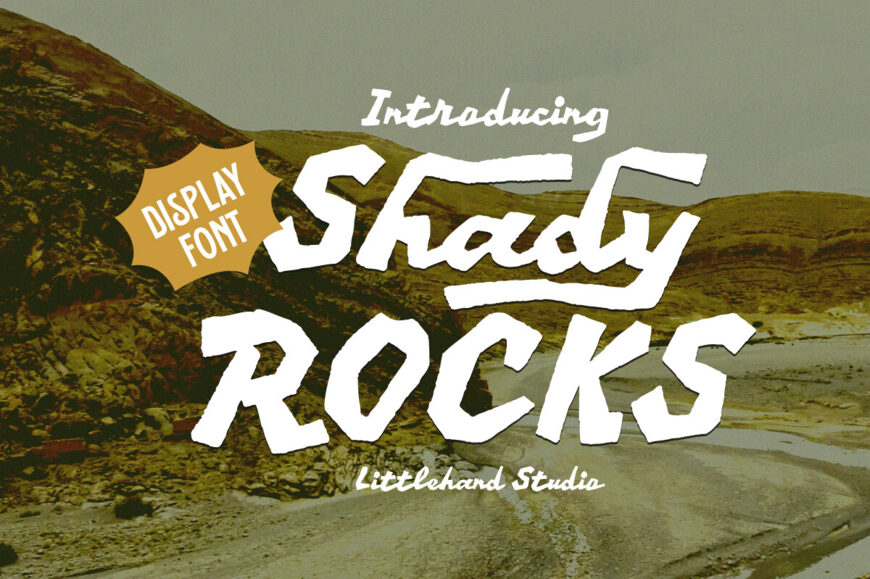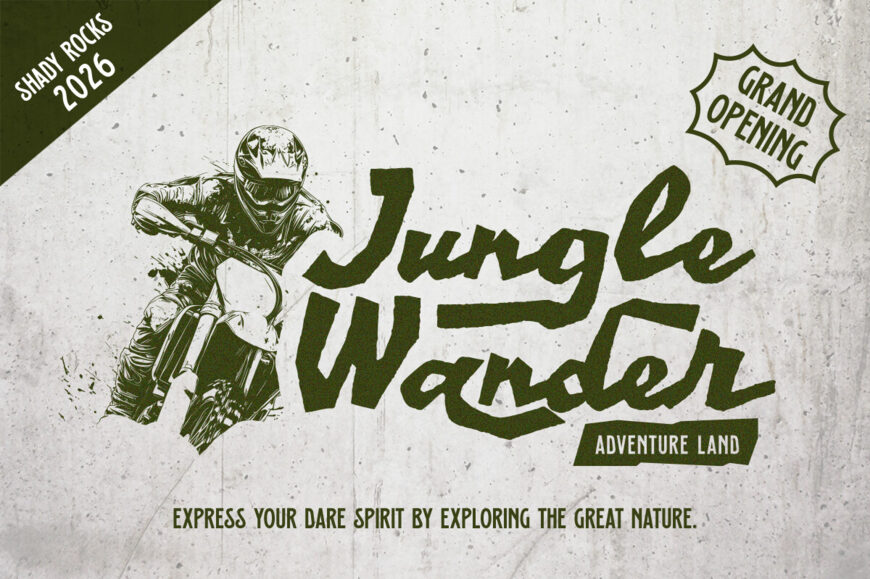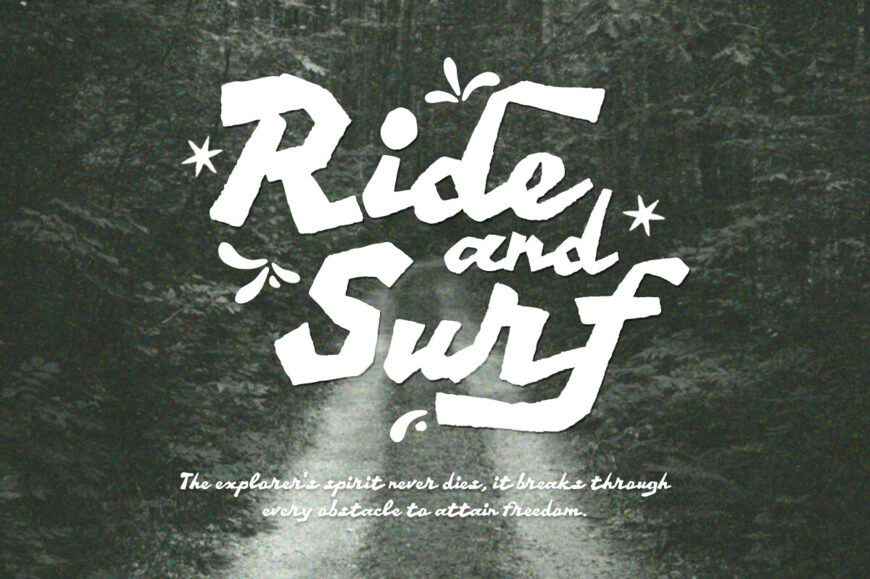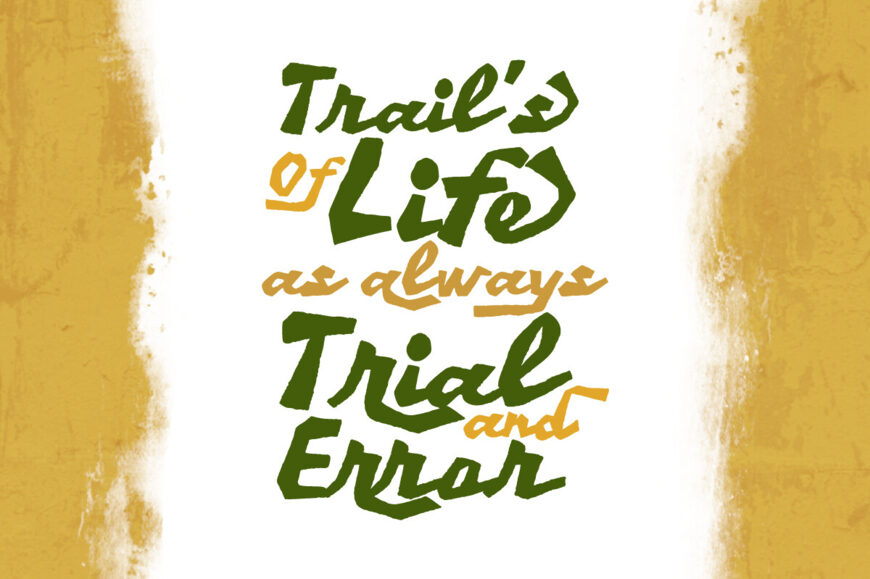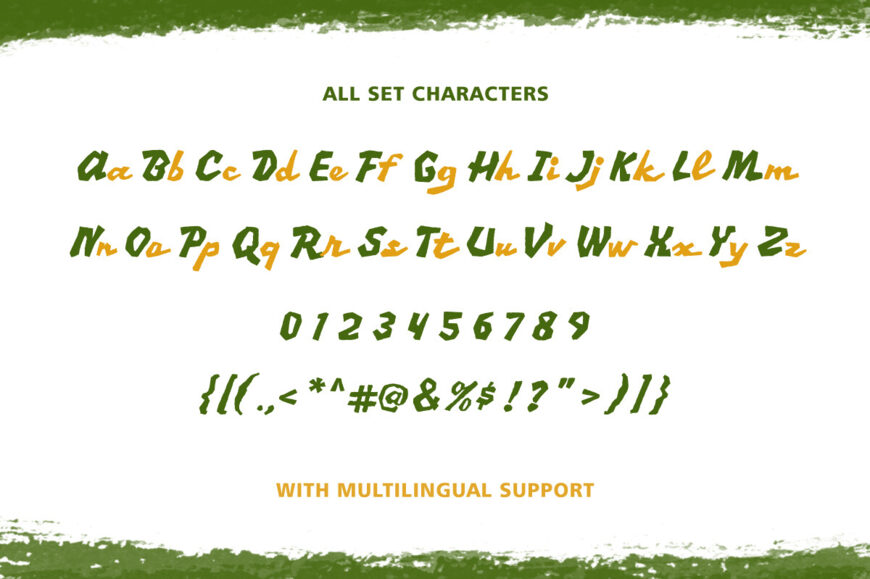
Shady Rocks Font
Add a touch of rugged charm to your designs with Shady Rocks, a bold display font. Its rough, hand-drawn edges and strokes evoke the great outdoors. Ideal for adventure-themed branding, sports gear, and entertainment, this font brings a dynamic, energetic feel. Use it for logos, posters, apparel, and more to give your typography a fearless, adventurous edge.